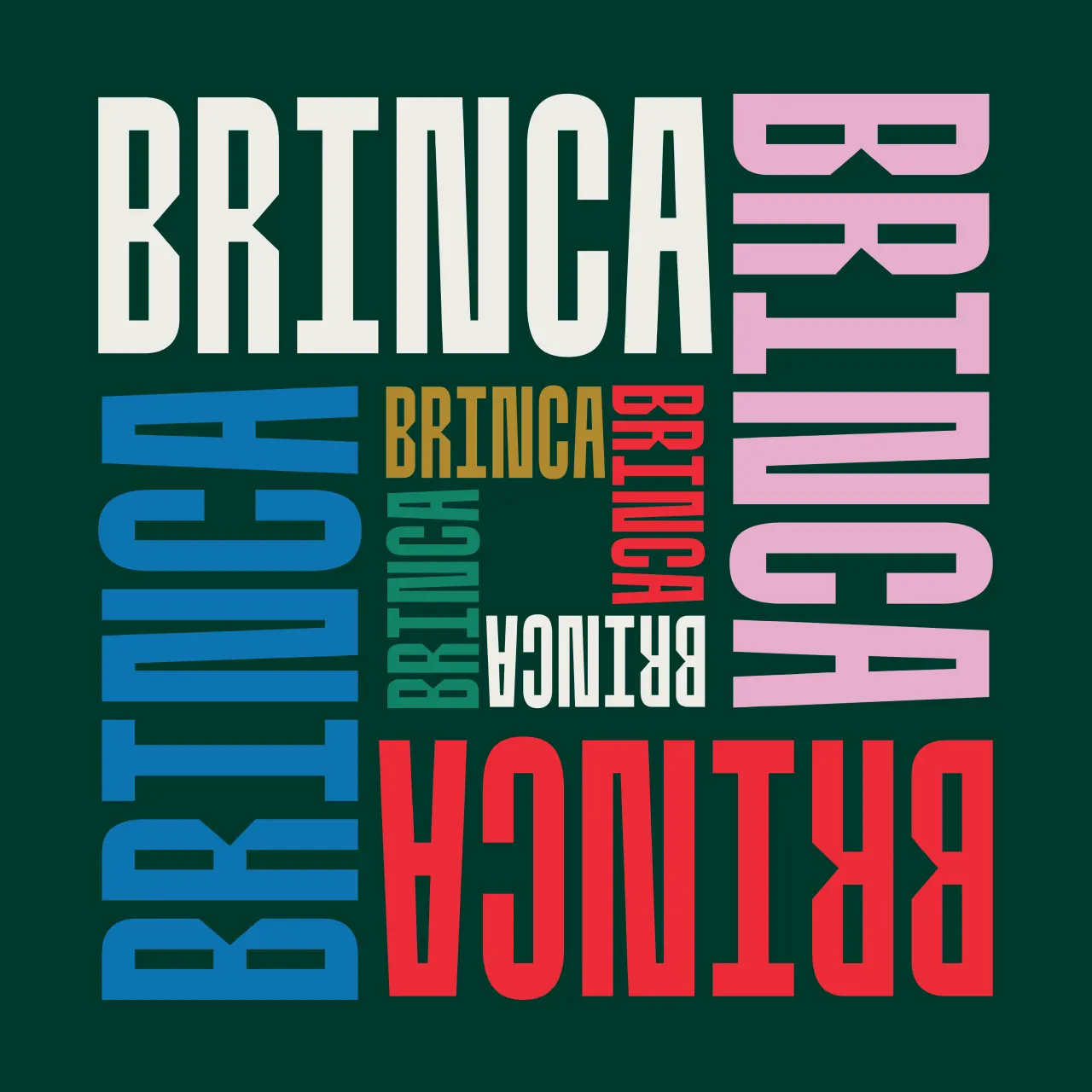
Which typefaces are going to be hot in the year to come? We bring together 50 fabulous fonts that everyone needs to know about – in one easy place.
Brinca typeface by In-House International
We've all got our favourite fonts, but it's good to mix things up now and again and stop your design work from becoming stale. And the start of a new year is the perfect time to do so. So, every year, we bring you a selection of the tastiest typefaces that have popped up on our radar, which we think creatives need to know about.
And gosh darn it, if it isn't that time again! It scarcely seems like five minutes ago since we were telling you all about the best fonts of 2023 to look out for. And now we're on the verge of 2024, so get ready for more typography-related goodness.
Below is a comprehensive list of the best fonts that demand your attention in 2024. We've compiled this comprehensive list by asking the creative industry for their favourites, analysing work from the last 12 months, and taking on board the design trends emerging right now.
But while we've tried to be as objective as possible, the following list is ultimately subjective. Quite honestly, we could have added 200 more incredible and inspiring fonts, but we really had to whittle it down to 50, and that was a challenge in itself. In doing so, we've managed to include a decent spread of indie foundries and designers, too.
Finally, before we get going, let's look at three big font trends that will likely influence typography next year. And if that interests you, check out our wider feature on 2024 type trends.
Three big front trends for 2024
Trend 1. Bespoke or personalised type
We've seen how some of the design industry has been playing it a little too safe lately, a rocky economy is perhaps to blame. But the dangerous outcome of this is that everything is starting to look homogeneous. Cue bespoke and unique type design, a trend we're seeing more often and one that Tom Munckton, head of design at Fold7, believes will continue to emerge in 2024.
Not only that, Tom thinks the future is open-source, but he has this warning: "We've seen a number of greater quality, better-designed open-source SIL fonts, making life very easy. But we've also seen a proliferation of boutique foundries open with vastly different pricing and licensing parameters, making things mind-bogglingly complex. So, it feels like a moment for brands to capitalise on demonstrating a level of altruism whilst showing their identities in a fresh way. And ensuring we don't see the same set of good open-source fonts overused."
Naughty Roll. indego design/macau. Image courtesy of Monotype
But Sarah Hyndman of Type Tasting thinks the future will be hyper-personalised. And that's because consumers are becoming co-creators of their brand experiences. Just look at Canva's recent partnering with Monotype to give users access to a huge selection of typefaces previously only available to professional graphic designers. "It means visually savvy consumers can now create their own personal brands while also curating the brands they purchase," she explains. Where is this already happening? Netflix has been adapting to our viewing habits for quite some time, and Coca-Cola lets you personalise the label with a name or message.
Sarah points to other developments: "Imagine going into a supermarket to see augmented reality overlays of packaging designs and dietary suggestions tailored to you. With personalised nutrition programme Zoe, you can scan the barcode on any food item to find out how it scores for your body. Today, you do this by launching an app on your phone, but this will change as AR technology develops." What does this mean for designers? "They will need to reflect the individual requirements of a future consumer who is increasingly both the purchaser and a design-savvy brand in their own right," she explains.
Limburgs Museum by Total Design. Image courtesy of Monotype
Nick Pattison of Primary believes there's a trend toward more decorative typefaces that steal the show. "I'm starting to see a number of projects using funky, bold, custom typefaces as a primary element in the brand identity," he tells us and points to Colour Mill by Universal Favourite as a good example. "The custom typeface is a nod to piping icing textures, appropriate for a food colouring brand with lots of flavours. This typeface plays surprisingly well with the other brand elements that share this puffy icing texture – leaving a lasting, memorable mark. It makes for a tasty brand that looks like no other."